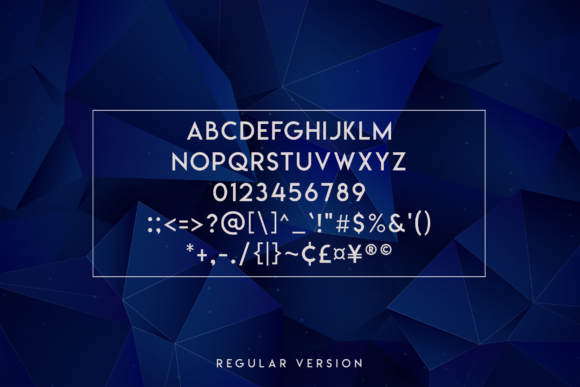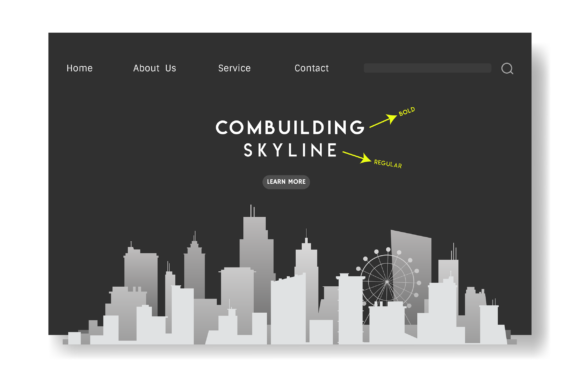
Introduction to Moule Font
Have you ever been working on a creative project, pouring your heart and soul into it, only to realize that the right font can make all the difference? For designers, finding the perfect font can be a game-changer. It’s the difference between a design that feels polished and professional, and one that feels bland and uninviting.
That’s where the Moule Font comes in – a versatile and sophisticated font that’s perfect for a wide range of design projects. With its sleek lines and modern aesthetic, Moule Font is a valuable resource for designers who want to create high-quality designs that stand out from the crowd.
Key Features of Moule Font
- Designed to offer crisp and clear readability at high resolutions (up to 300 DPI)
- Perfect for designers and artists looking for a versatile and stylish design resource
Honest Review: Moule Font
I recently had the chance to work with the Moule Font, and I must say, it’s been a game-changer for my creative projects. The font is a high-quality design resource that offers a unique and elegant aesthetic.
- ✨ Elegant and refined design: The Moule Font has a sophisticated look that elevates any text-based element in my designs.
- ✨ Transparent background: The font’s transparent background allows for seamless integration with other design elements, giving me more creative control over my projects.
- ⚠️ Limited font family: While the Moule Font is a high-quality resource, it’s limited to a single font family, which might not be ideal for designers who need a more extensive font library.
- ⚠️ Not suitable for bold text: Due to its elegant design, the Moule Font might not be the best choice for bold or attention-grabbing text, as it can become lost in the design.
Overall, I’m thoroughly impressed with the Moule Font and would highly recommend it to designers working on high-end creative projects. Its elegant design, free availability, and transparent background make it a valuable addition to any design resource library.
Moule Font
Tips for Getting the Most Out of Moule Font
Experiment with different font sizes, colors, and combinations to create unique and visually appealing designs. Use the font in conjunction with other design elements, such as images and shapes, to create a cohesive and engaging design resource.
Alternatives to Moule Font
Alegreya Sans is a high-quality sans-serif font suitable for creative projects requiring a clean and modern look. It features a transparent background, making it ideal for designs where text overlay is required.
When to use: Alegreya Sans is perfect for digital design, web design, and graphic design projects where a sophisticated and elegant look is desired.
Comparison to Moule Font: Alegreya Sans has a more modern and minimalist design compared to Moule Font, making it ideal for contemporary creative projects.
Playfair Display is a luxurious script font ideal for high-end creative projects, such as wedding invitations, luxury branding, and elegant packaging design.
When to use: Playfair Display is perfect for projects where a touch of sophistication and elegance is required.
Comparison to Moule Font: Playfair Display has a more luxurious and ornate design compared to Moule Font, making it ideal for high-end creative projects.